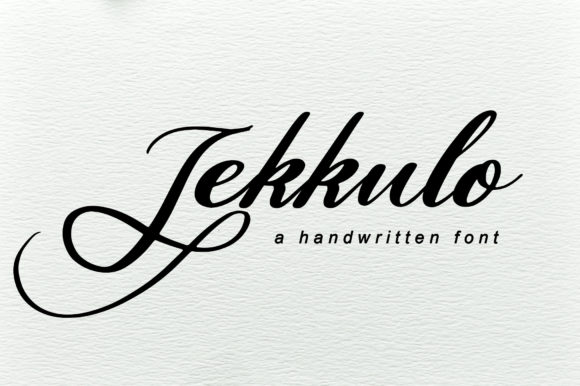
Behold Jekkulo, a captivating script font, a masterpiece of digital calligraphy that combines timeless elegance with contemporary flair. Inspired by the beauty of handwritten strokes, Jekkulo offers an array of meticulous details and graceful curves that dance across your designs.
Step into a world of refined typography with Jekkulo, a font designed to ignite your creativity and elevate your messages. Its balanced strokes and varied weights create a harmonious visual experience, effortlessly enhancing the aesthetics of your projects. Whether you're crafting logos, invitations, branding materials, social media graphics, or any other creative endeavor, Jekkulo ensures your words leave a lasting impression.
Immerse yourself in the charm of Jekkulo, a font that weaves a tapestry of sophistication and approachability. Its elegant curves and natural flow bring warmth and personality to your designs, making them instantly relatable and engaging. Captivate your audience with the allure of Jekkulo, a font that speaks volumes without uttering a single word.
Discover the versatility of Jekkulo, a font that effortlessly adapts to a myriad of design styles and projects. Its versatility extends from formal invitations and wedding stationery to playful branding and social media graphics. Unleash your creativity and explore the endless possibilities that Jekkulo presents.